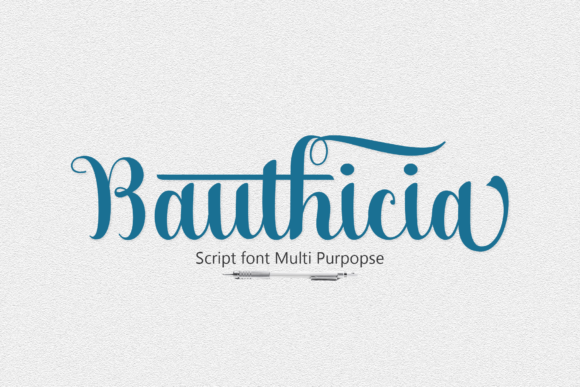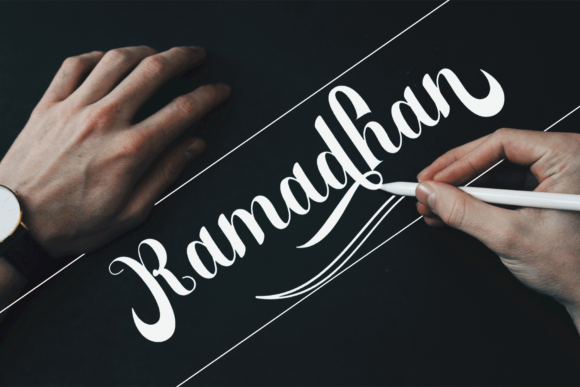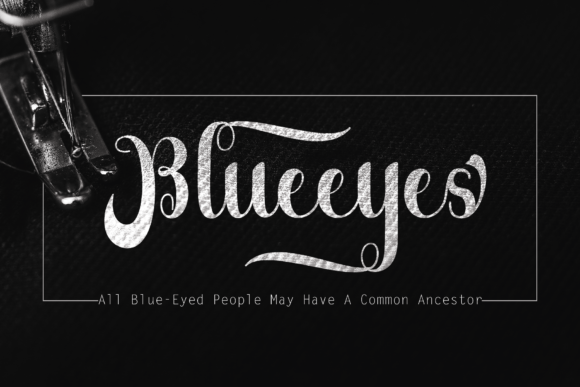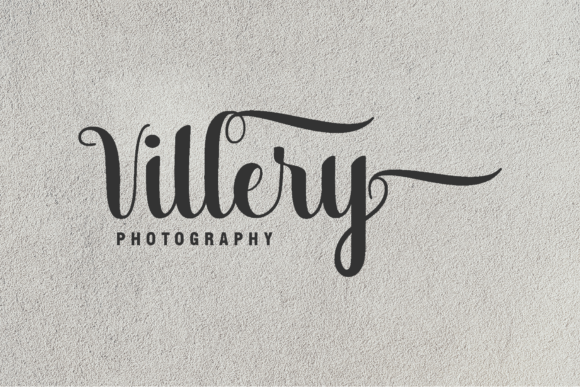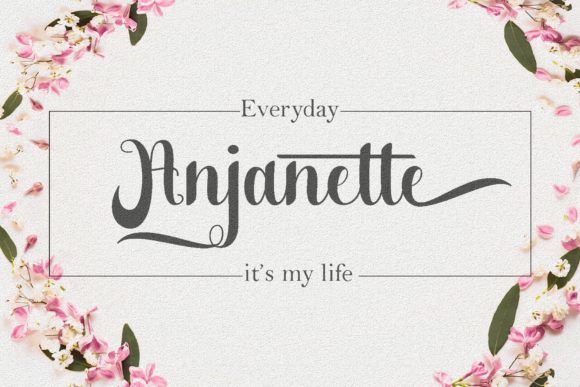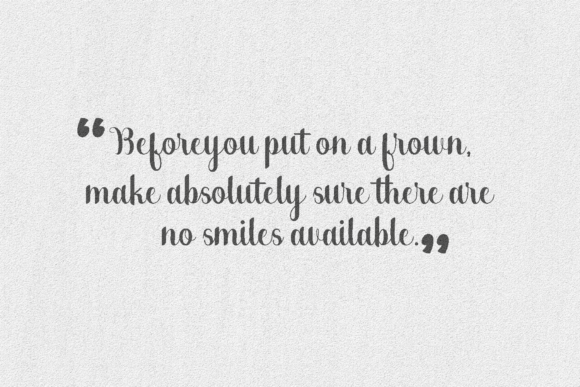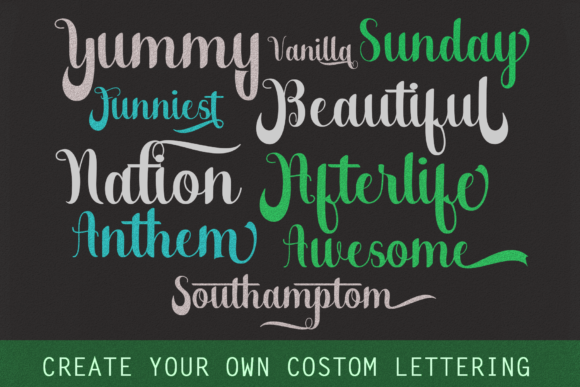
Bauthicia Font
Bauthicia is a gorgeous script font with tons of style in a measured, clean appeal. This font comes with stylistic alternates, and is perfect as a headline for a wide range of designs.